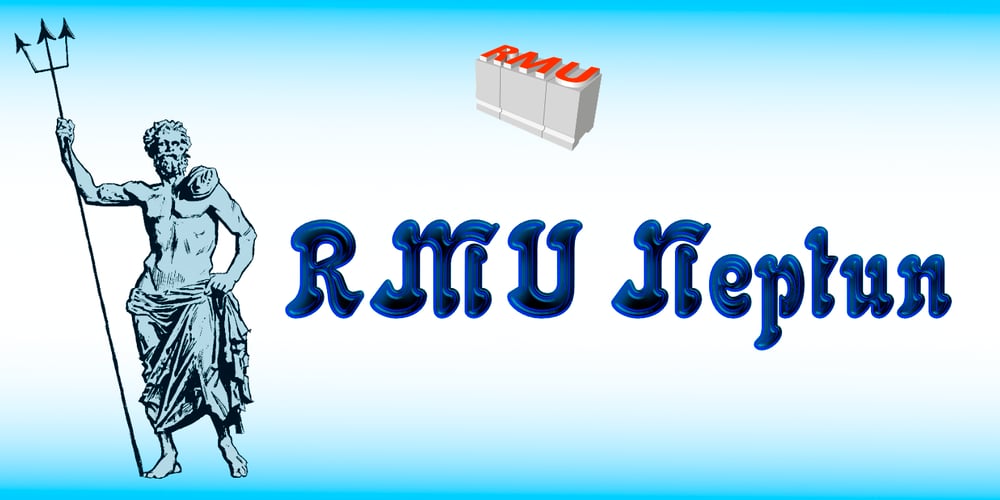
RMU Neptun Font Family was designed by Ralph M. Unger and published by RMU. RMU Neptun contains 1 styles and family package options. A turn-of-the-century Art Nouveau display font, originally from the Aktiengesellschaft fuer Schriftgiesserei und Maschinenbau, Offenbach, revived and extended.